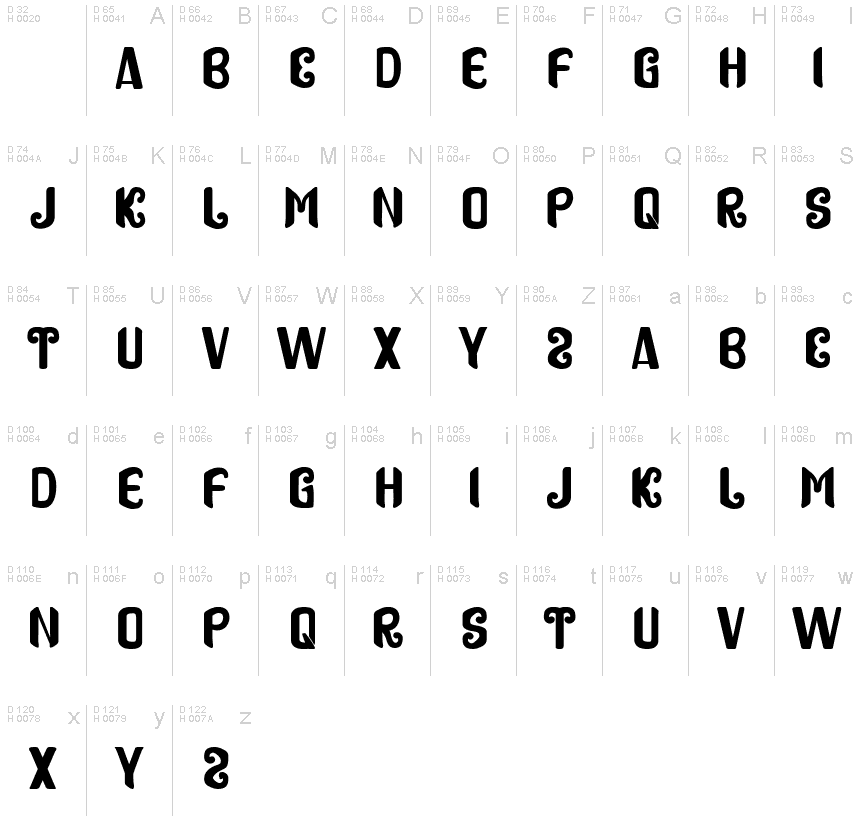
People Regular
People font designed by Vladimir Nikolic is a bold display typeface that packs a punch with its strong and impactful appearance. With an air of confidence, this font exudes power and authority, making it suitable for projects such as branding, advertising, posters, and headlines. The People font's thick and bold letterforms are perfect for making a statement and commanding attention. Its versatility makes it ideal for use in both digital and print mediums. This display font is perfect for those who want to stand out from the crowd!